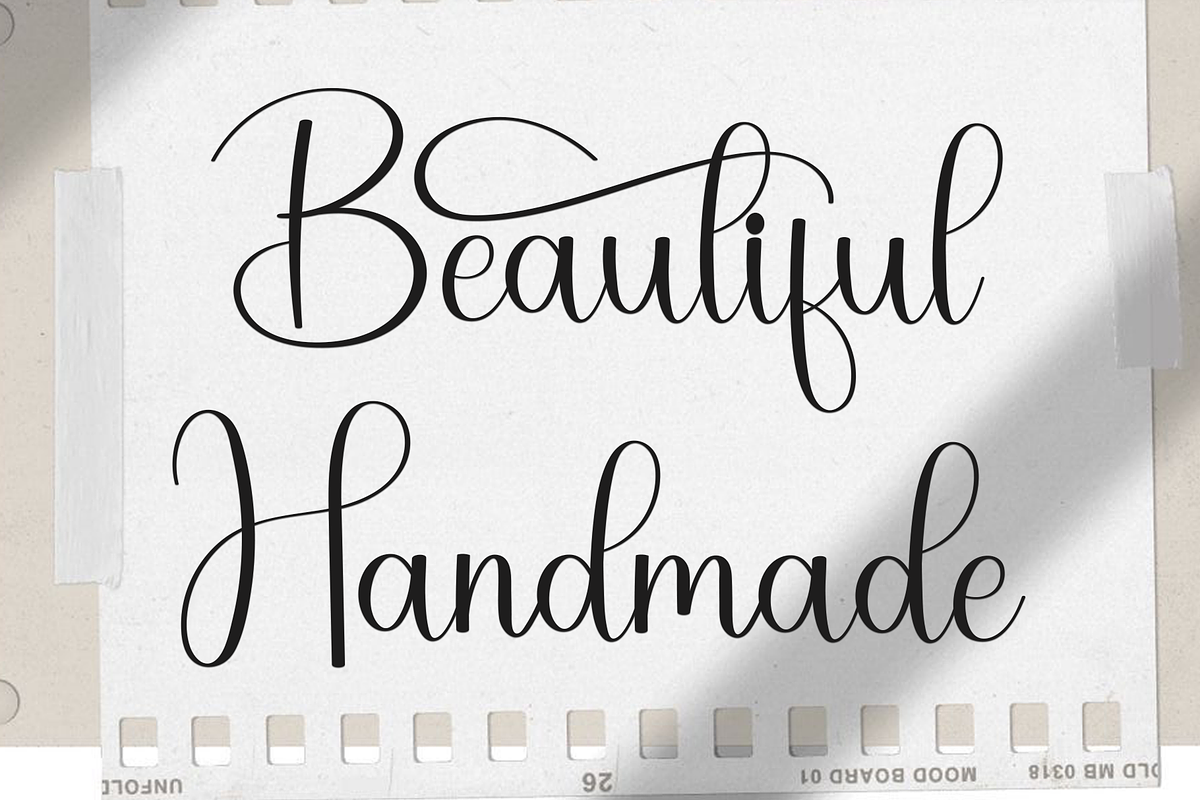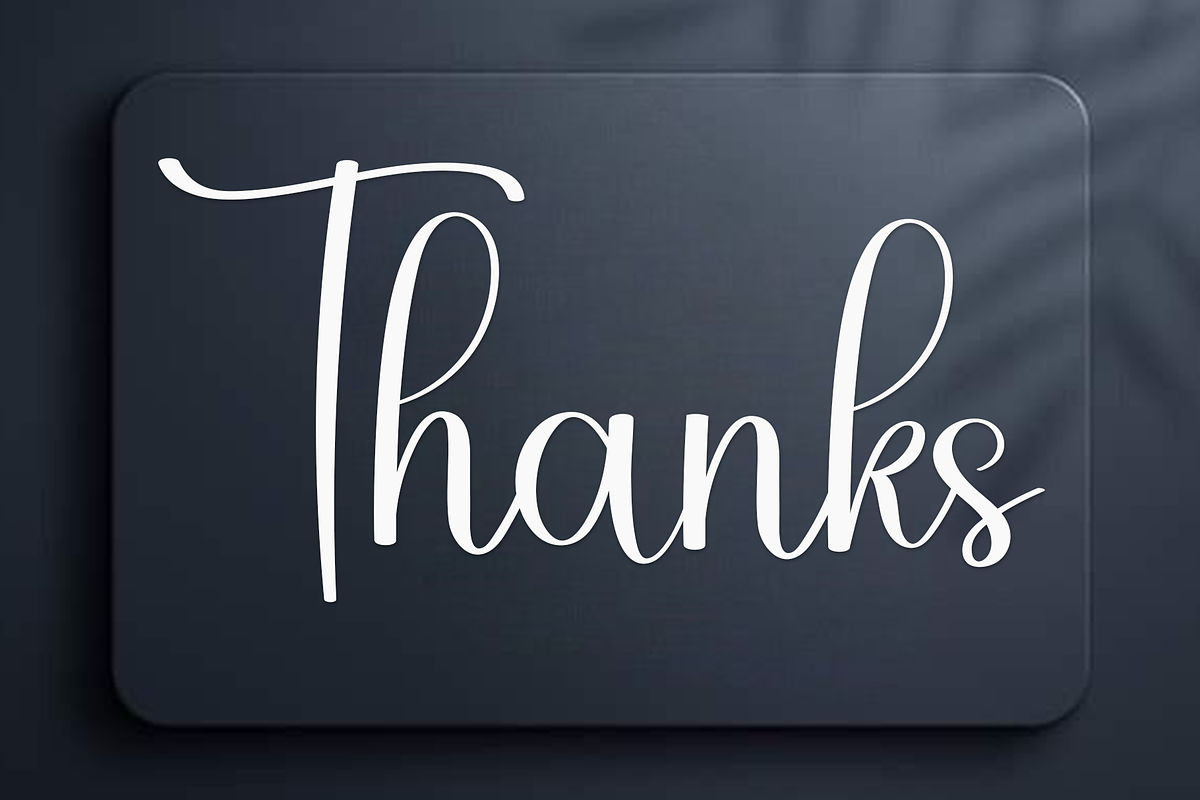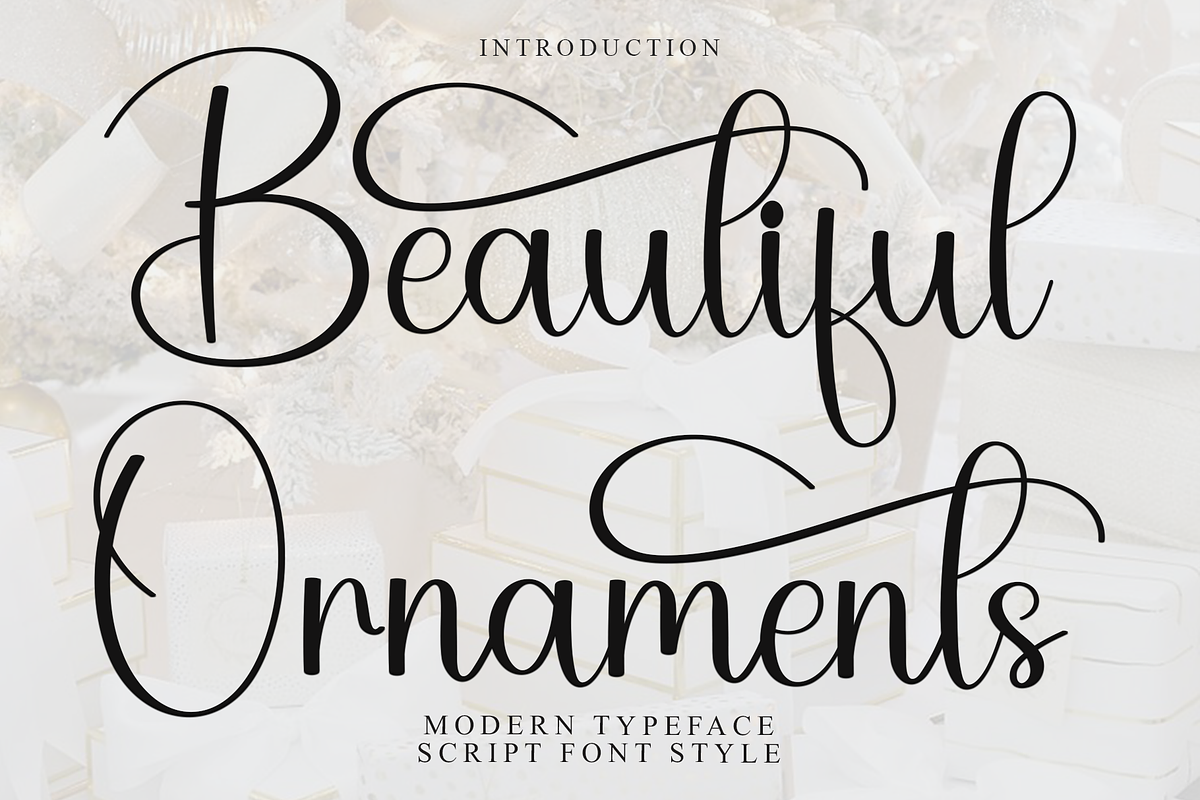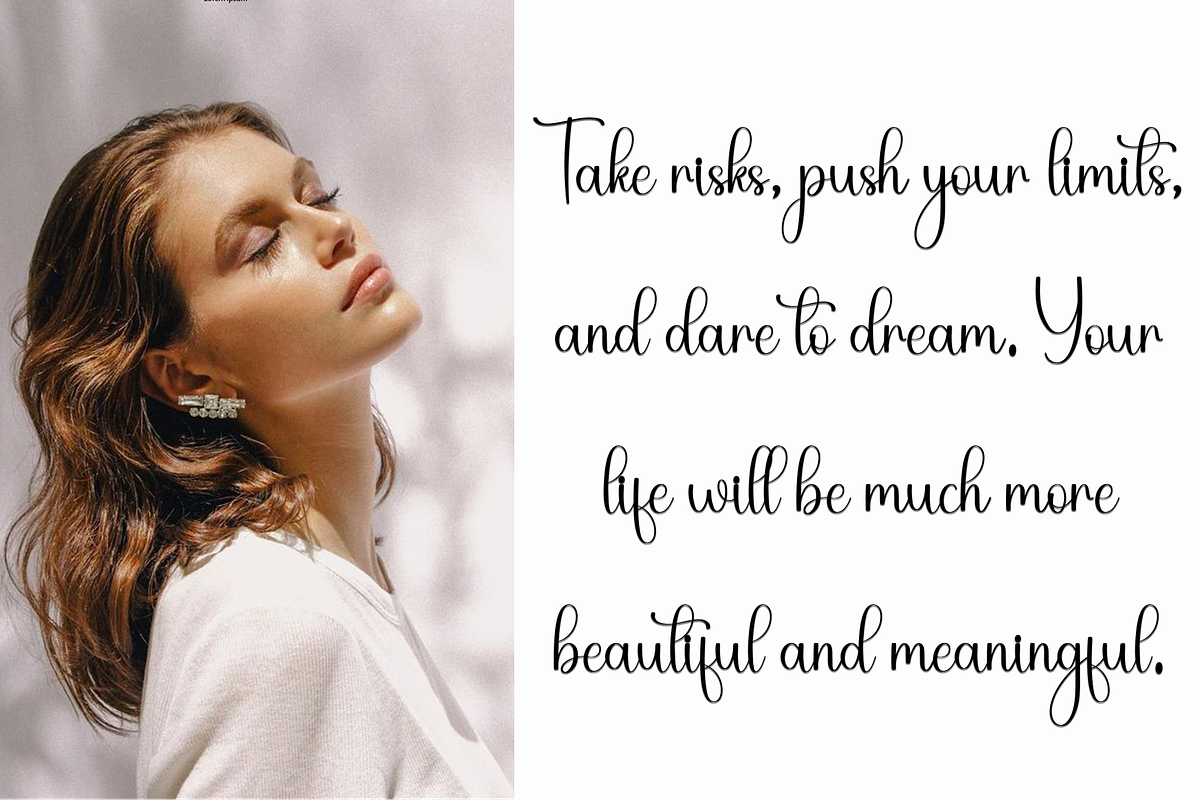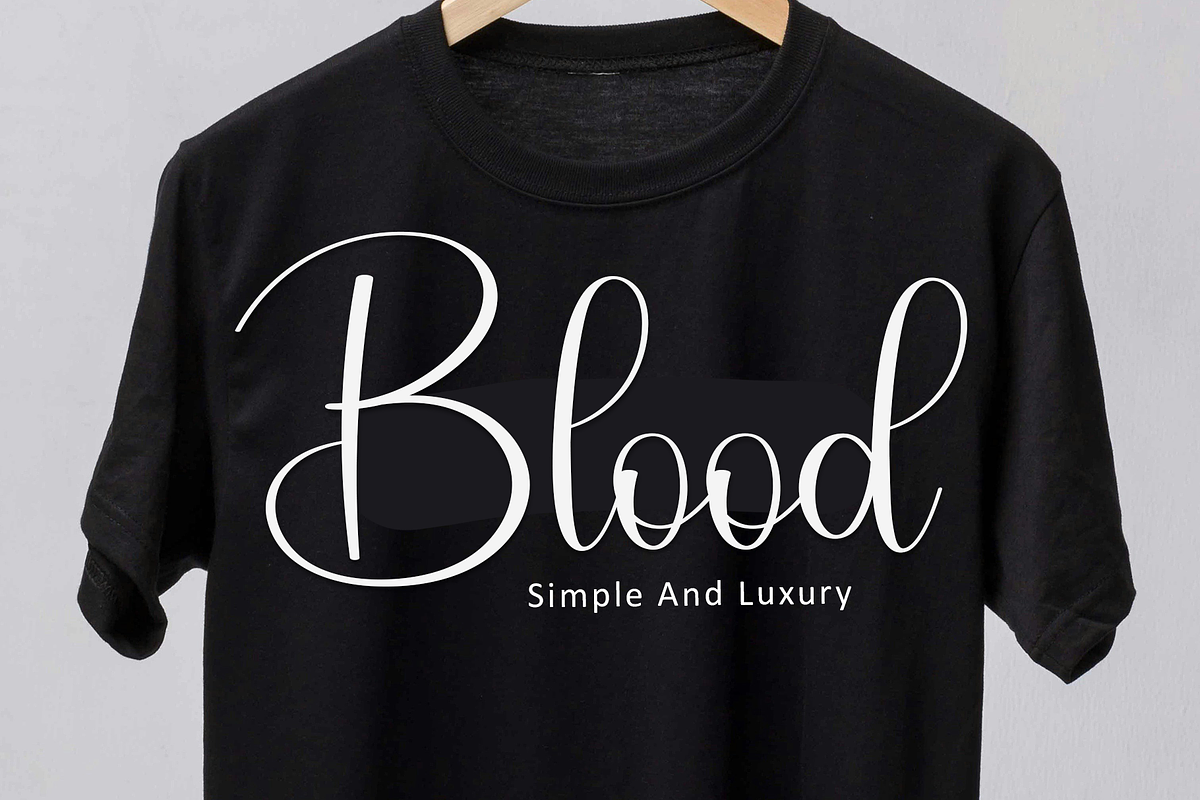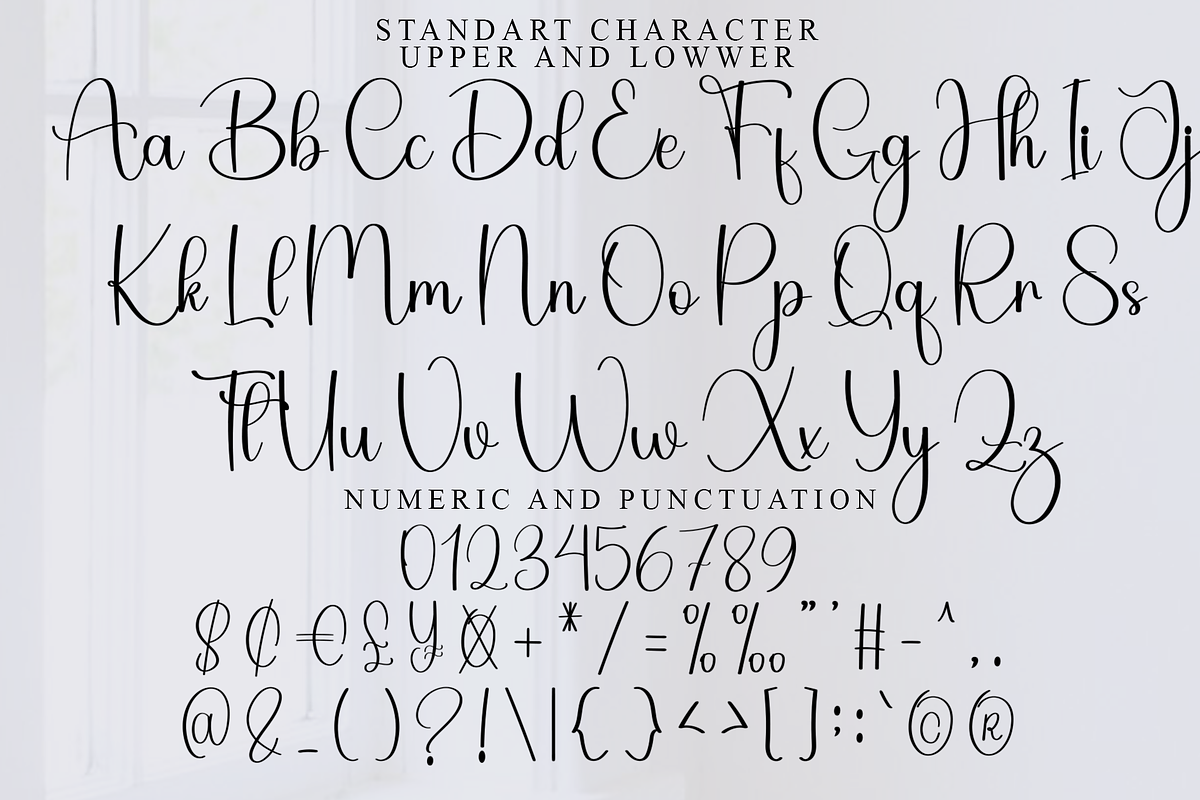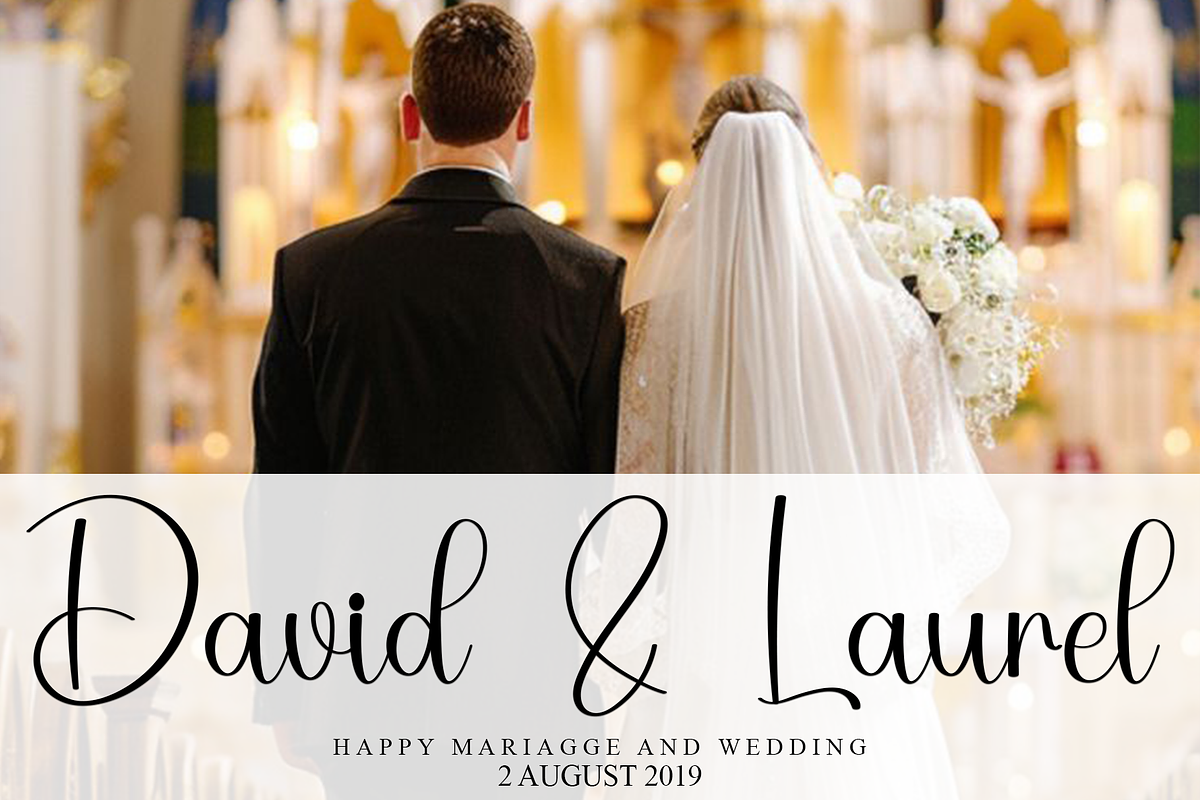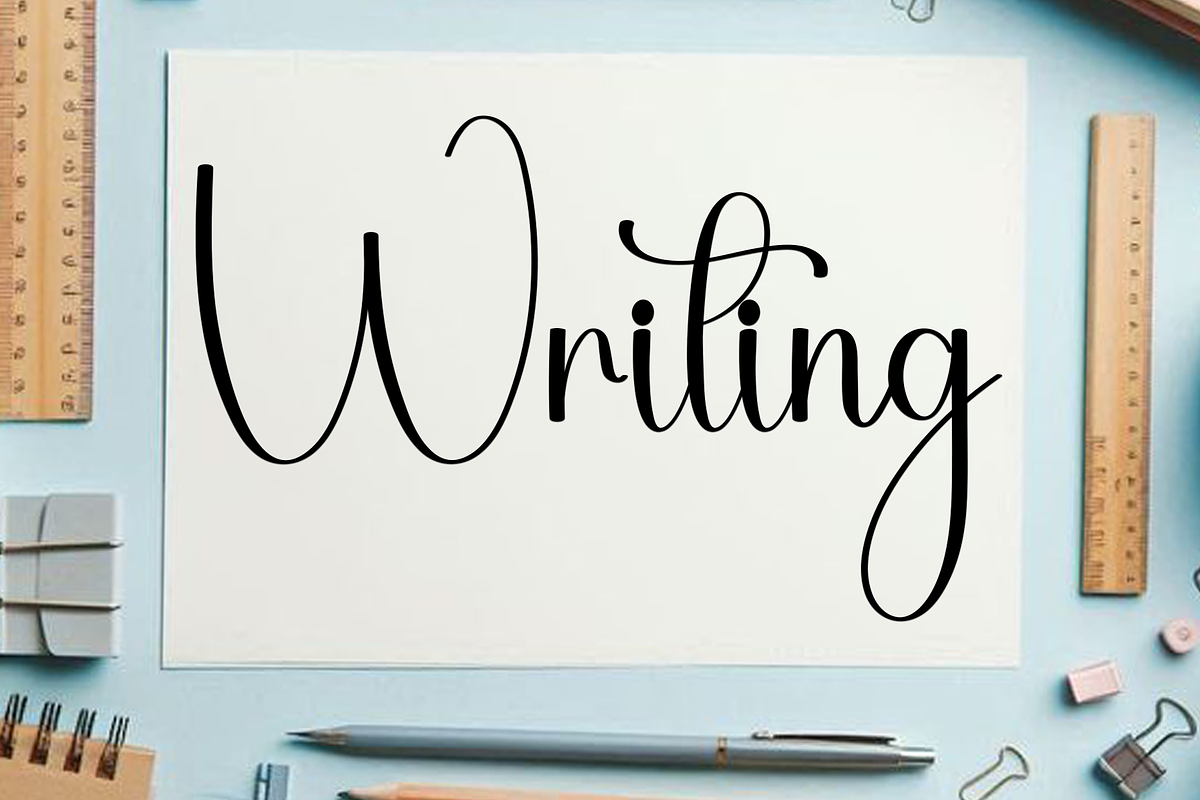
Beautiful Ornaments
Beautiful Ornaments is a beautiful and eye-catching font designed with a soft, unique touch. Its distinctive strokes give it a special character, making it meaningful and versatile for future use. With various characters, it’s perfect for design projects, crafts, and other creative works.